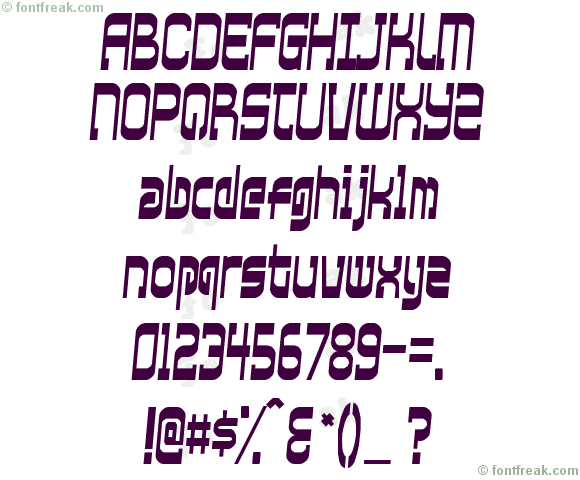
Xtraordinary
About Xtraordinary
The Xtraordinary font by Pizzadude is a striking display typeface that merges modern aesthetics with a unique flair. This free font, designed by C. Jakob Fischer, showcases a contemporary style characterized by its bold strokes and playful forms. The font features a medium stroke weight with an intriguing contrast that adds depth without overwhelming the viewer. The spacing is well-considered, ensuring readability while maintaining a dynamic visual impact. Its decorative elements, including playful curves and distinctive angles, lend a whimsical quality that makes it stand out in any design.
Ideal for a variety of creative applications, the Xtraordinary font shines in contexts such as advertising, product packaging, and event promotions. It is particularly well-suited for eye-catching movie posters, where its bold design can capture attention effortlessly. Additionally, it works wonderfully for restaurant menus that aim to convey a sense of modernity and fun. Graphic designers can also utilize this font for social media graphics, giving their content a distinctive edge that resonates with audiences. Small business owners looking to create memorable branding materials will find Xtraordinary to be a perfect choice for logos and promotional materials.
What truly sets the Xtraordinary font apart is its ability to combine simplicity with uniqueness. Its bold yet approachable design makes it a fantastic choice for anyone looking to make a statement while maintaining clarity and style in their typography.